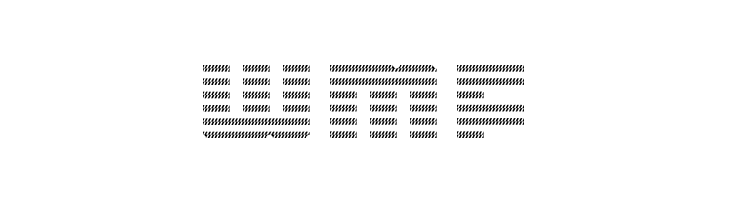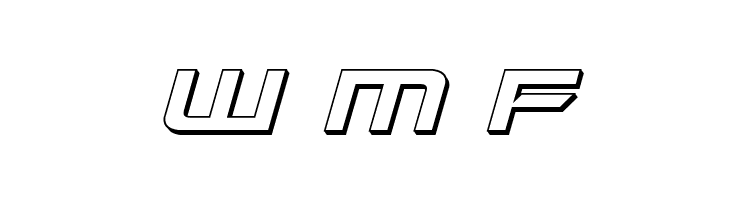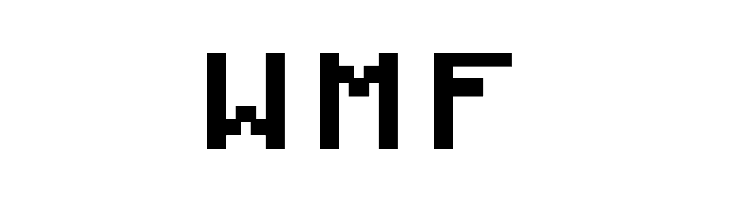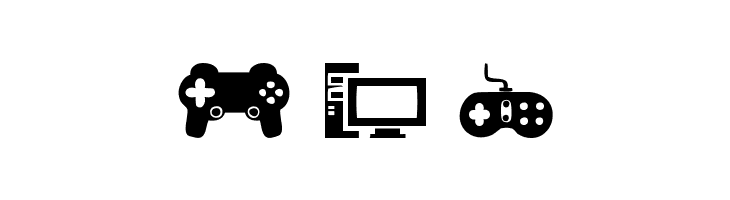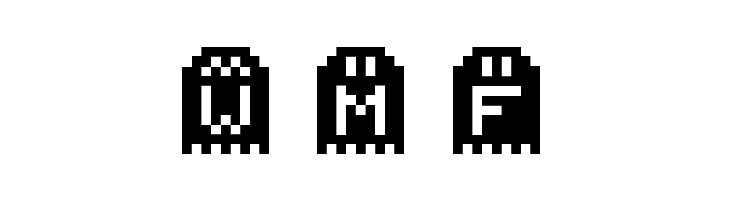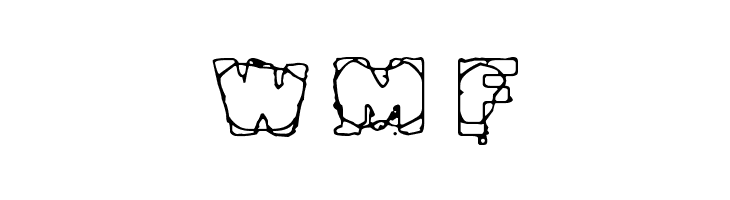
A pixelated, retro-style font with a blocky, geometric design.
A bold, geometric font with a 3D shadow effect, ideal for retro and modern designs.
A dot matrix font with a digital, retro aesthetic.
A dot-matrix style font inspired by digital displays.
A pixelated dingbat font with retro 8-bit style symbols.
Numerals inside dodecahedron shapes with a clean, geometric sans-serif style.
A pixelated, bitmap-style font with a retro digital aesthetic.
A pixelated, italicized bitmap font with a retro digital aesthetic.
A pixelated, blocky font with a retro digital aesthetic.
A bold, pixelated font with a rugged, digital aesthetic.
A pixelated, blocky font with a retro digital aesthetic.
A display font featuring hand-drawn video game consoles as characters.
Bold, geometric, and decorative fonts designed for gaming brand logos.
A geometric, pixelated font with a modular and digital aesthetic.
A dot matrix font with a retro digital display aesthetic.
A dot-based, digital-style font with a modern, pixelated appearance.
A bold, medieval-inspired font with sharp serifs and a gothic influence.
A dotted, pixelated font with a modern, digital aesthetic.
A futuristic, geometric font with rounded edges and consistent line weight.